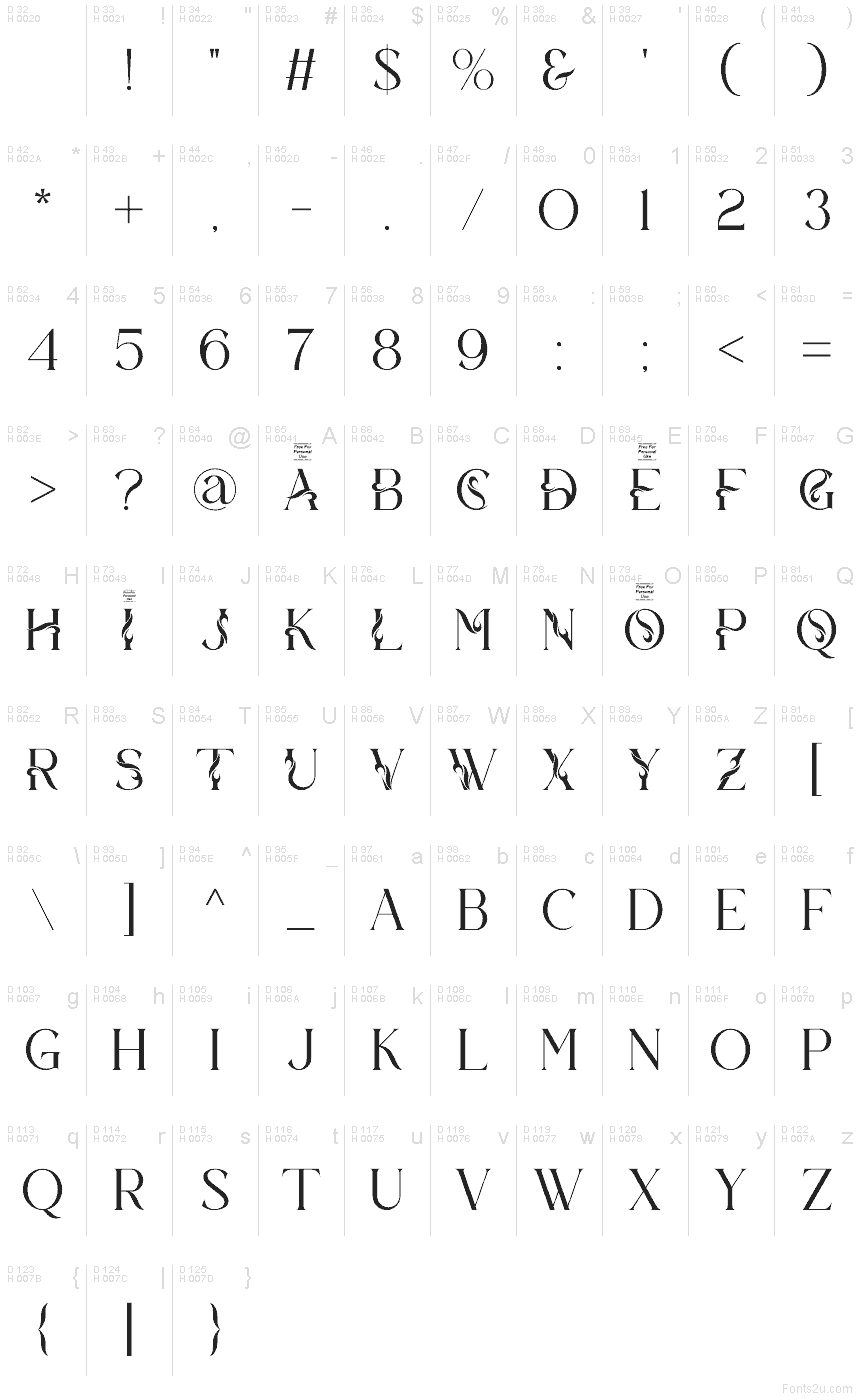
Tevano
Tevano font by ErmediaStudio is a free decorative display font. It stands out with luxe, high-contrast strokes—razor-thin hairlines meeting inky thick stems—and sculpted cuts that feel like chiseled stone. The caps carry a dramatic, almost flame-like flair, giving headlines a theatrical snap while keeping spacing tight and confident for crisp, poster-sized impact.
Using Tevano, visual identities gain that boutique-luxury tension—just right for fashion branding, perfume packaging, wine labels, editorial covers, gala invitations, and statement posters. This free font shines at large sizes where its glossy contrasts breathe. Pair it with a clean grotesque sans for copy, and add a touch of letterspacing to let those sharp serifs gleam.